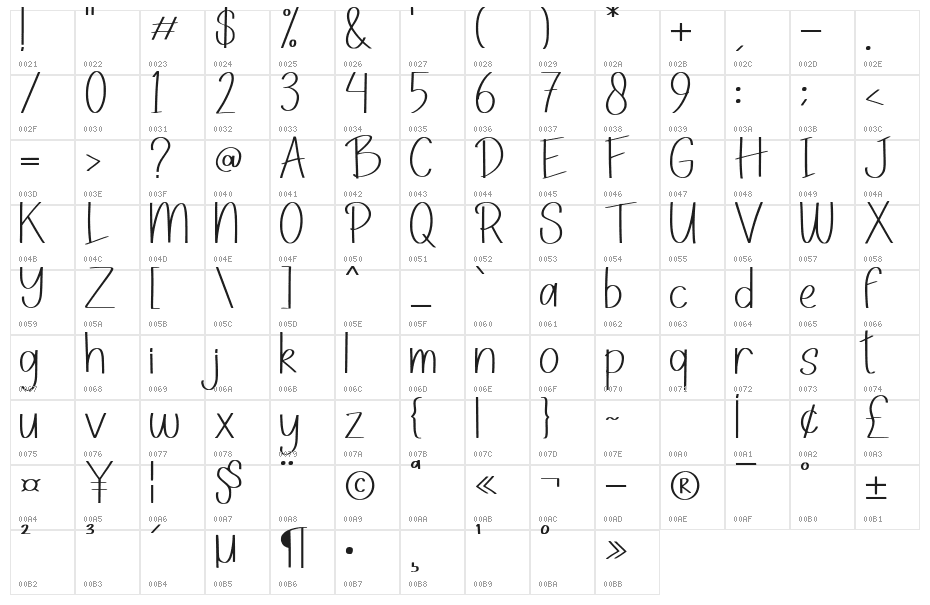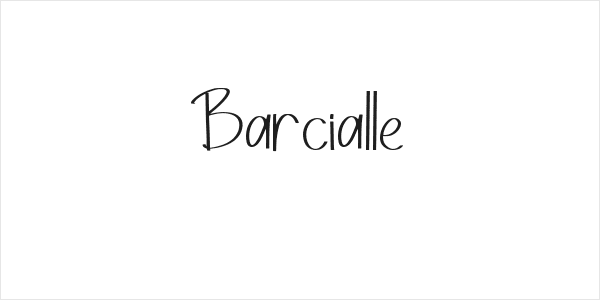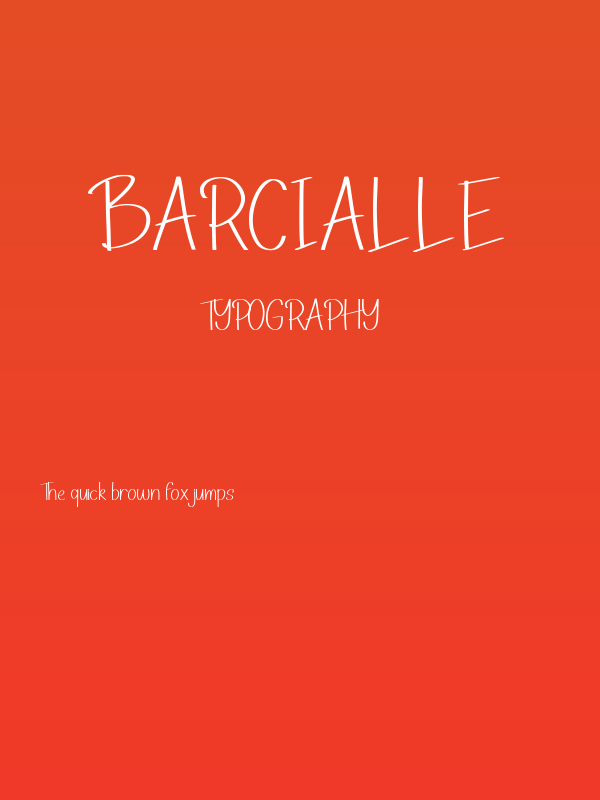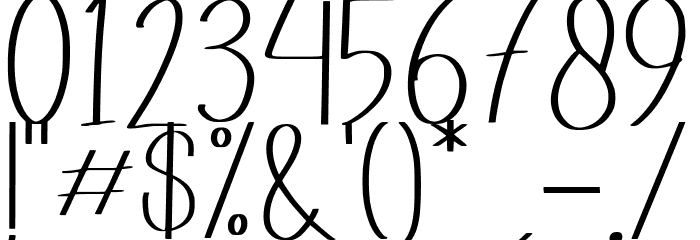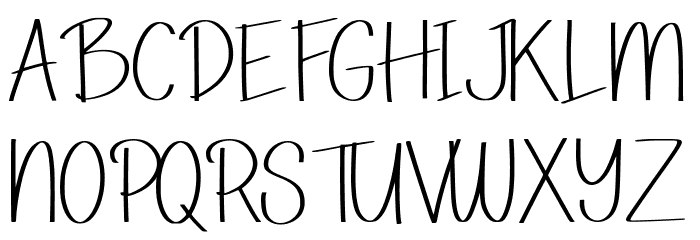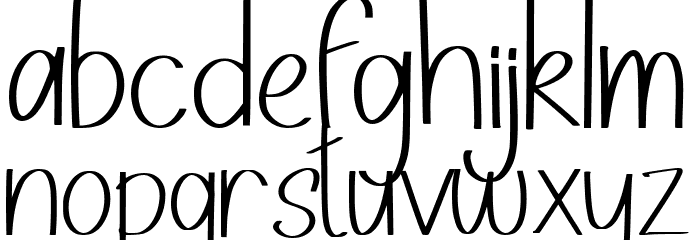
Barcialle Font
Barcialle Description
This font features a playful and whimsical handwritten style, characterized by tall, narrow letters with a slight slant. The strokes are consistent in weight, giving it a uniform appearance. The uppercase letters are slightly taller than the lowercase, adding to its quirky charm. The numerals and special characters maintain the same playful aesthetic, making it versatile for various uses. The font's overall look is casual and friendly, suitable for projects that require a personal touch.
| Use Case | Headlines, Informal text, Branding |
| Proposed Projects | Ideal for greeting cards, children's books, playful branding, and casual invitations. |